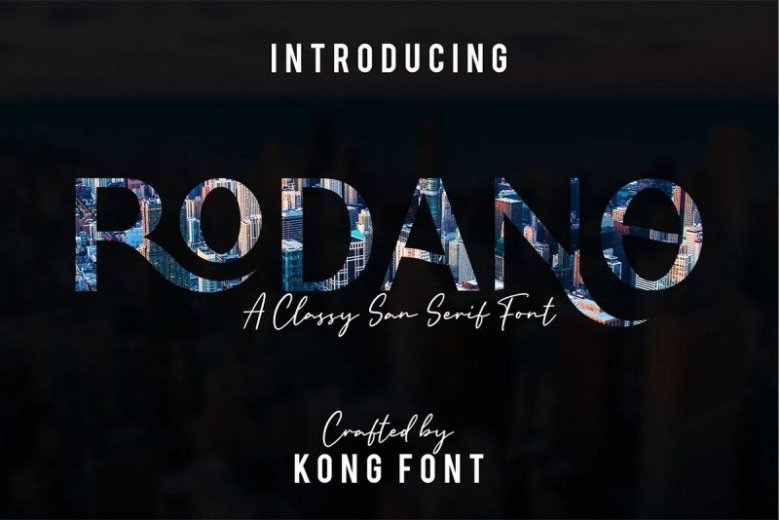
Rodano Display Font
Rodano Display Font is a minimalist luxury and gorgeous font that is both classically elegant and inherently modern. Create unique word mark logo, beautiful wedding invitations, use it as an elegant solution for your next magazine layout, or choose Rodano for any graphics that require a sleek look with a elegant flair.